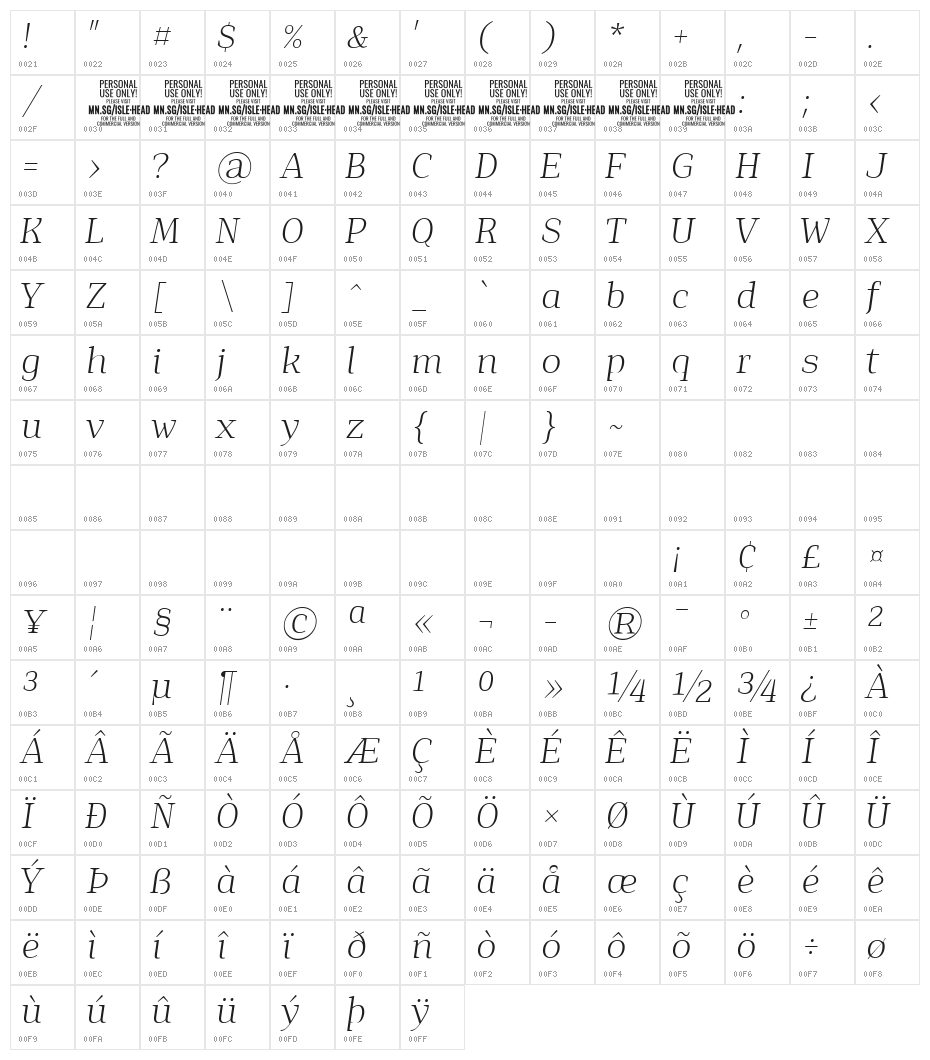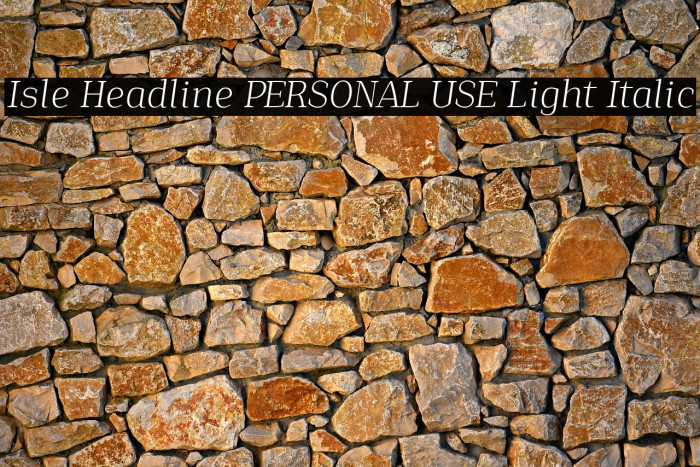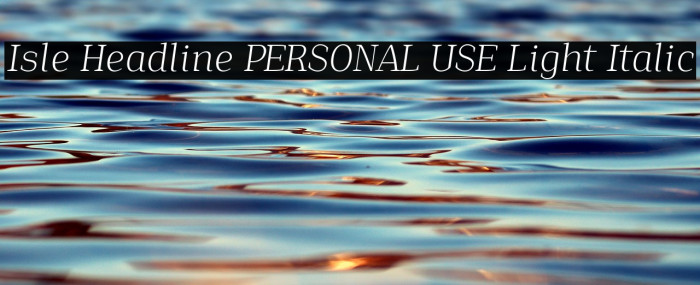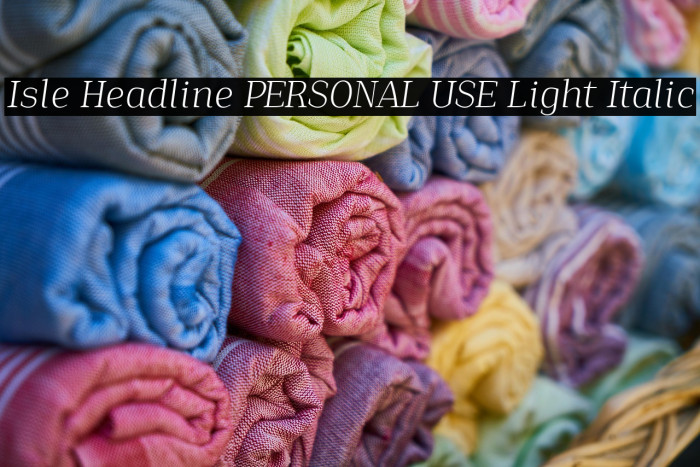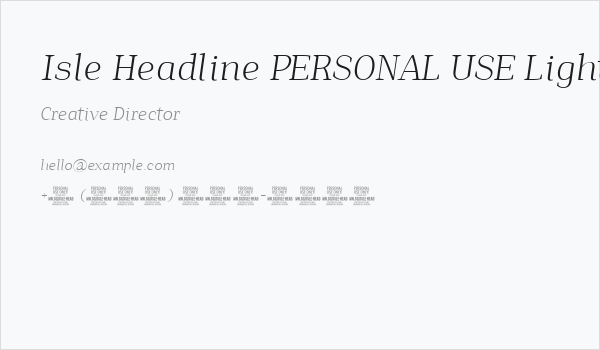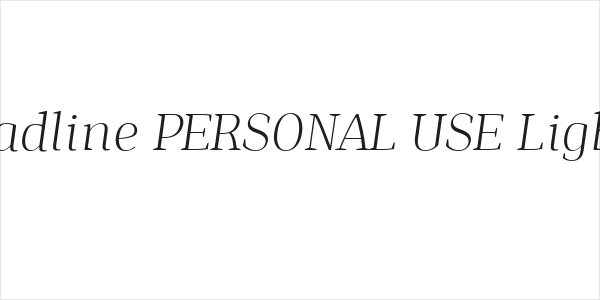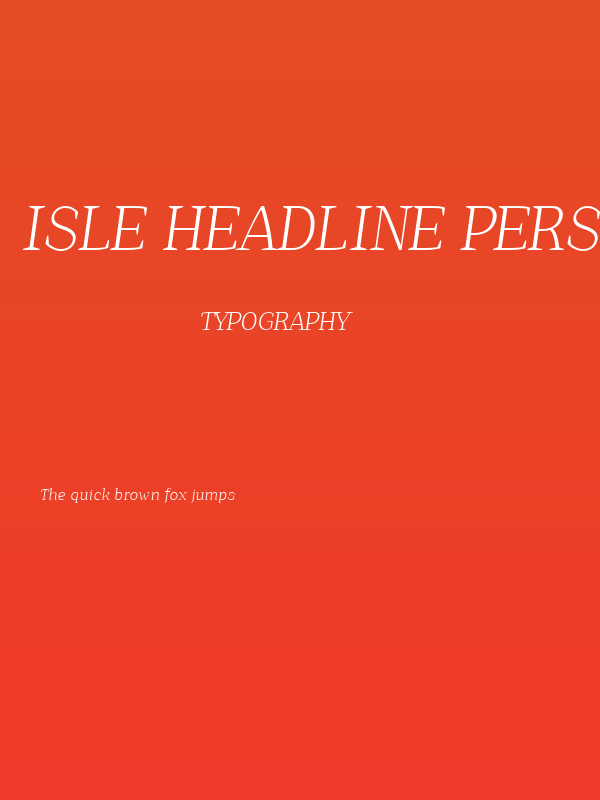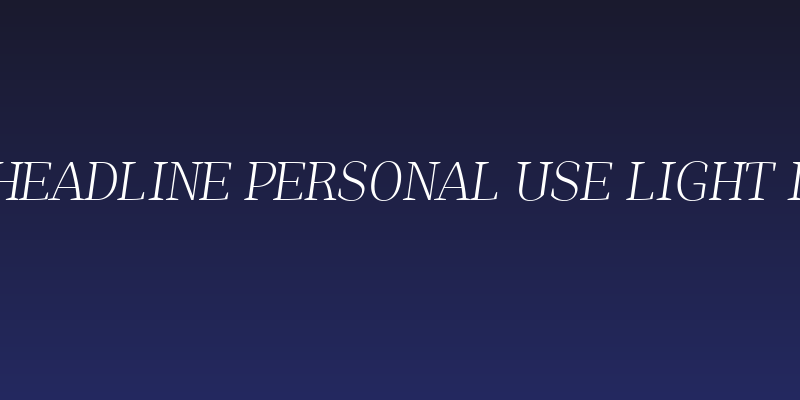
Isle Headline PERSONAL USE Light Italic Font
Isle Headline PERSONAL USE Light Italic Description
This elegant serif typeface features a refined and sophisticated design, characterized by its light weight and italic style. The letters have a graceful slant, adding a dynamic and fluid appearance to the text. The strokes are thin, with a consistent and smooth flow, enhancing readability while maintaining a stylish look. The font's design is perfect for creating a sense of elegance and professionalism, making it suitable for various formal and creative applications. The spacing between characters is balanced, ensuring clarity and legibility across different sizes. Its overall aesthetic is both classic and modern, making it versatile for a range of design projects.
Overall StyleClassic
Proposed ProjectsIdeal for wedding invitations, luxury branding, editorial design, and elegant signage.